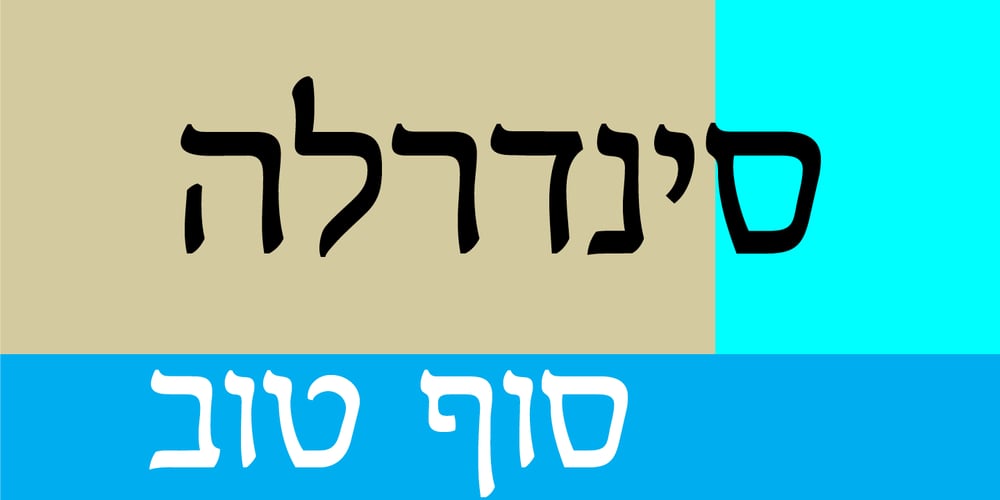
Mimi MF
Mimi MF font
Mimi MF Font Family was designed by Eliyahu Fried and published by Masterfont. Mimi MF contains 1 styles and family package options. Simple yet decorative serif stroked font . Use for titles, signage, captions etc. Highly legible at children books.